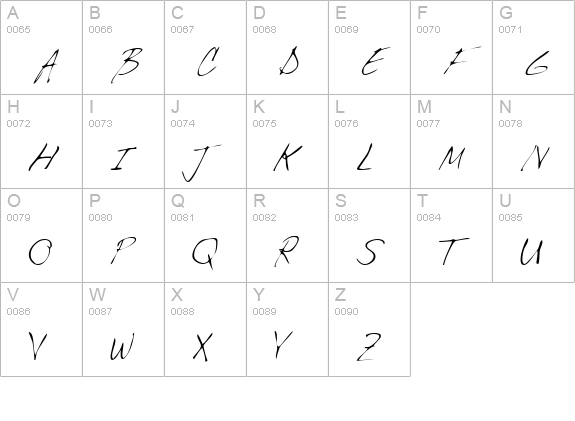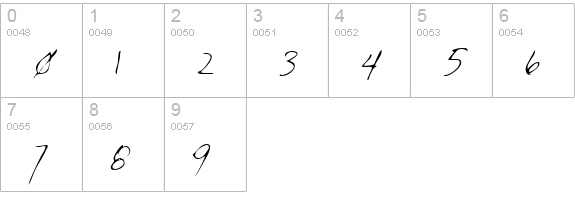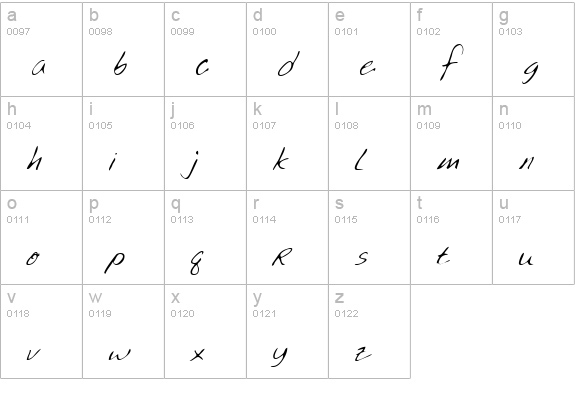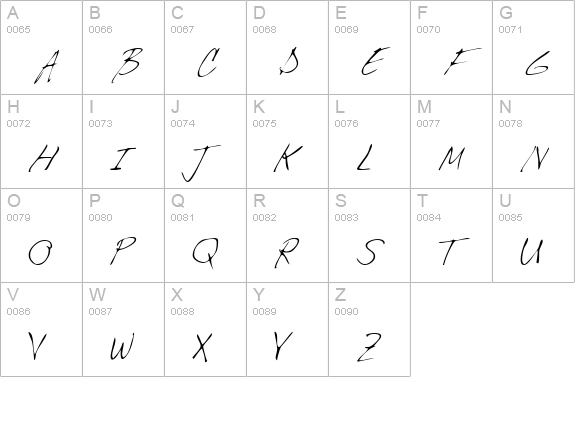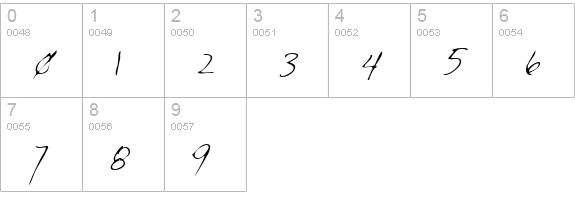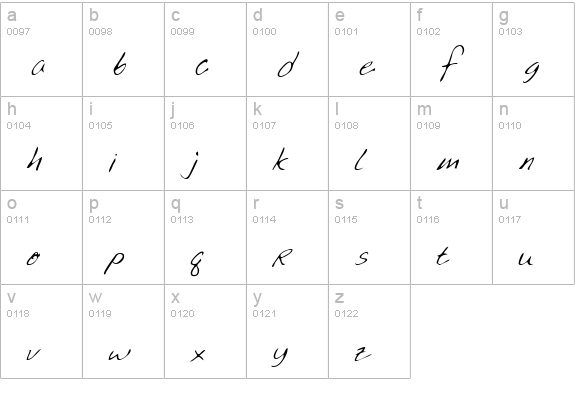
BrendensHand Regular is the standard, neutral variant in the BrendensHand typeface family \xE2\x80\x94 well suited to general body text, paragraphs, and standard typographic work.
BrendensHand Regular font is a charming and versatile typeface that exudes a sense of warmth and friendliness. With its handwritten style and flowing curves, this font adds a personal touch to any design project. Whether used for invitations, greeting cards, or branding materials, BrendensHand Regular font is sure to make a lasting impression. Best of all, BrendensHand Regular font is available for free download at FontsMarket.com. This means you can easily access this beautiful font and use it in your projects without any cost. Don't miss out on the opportunity to enhance your designs with the unique charm of BrendensHand Regular font. Download it today and add a touch of personality to your creations.